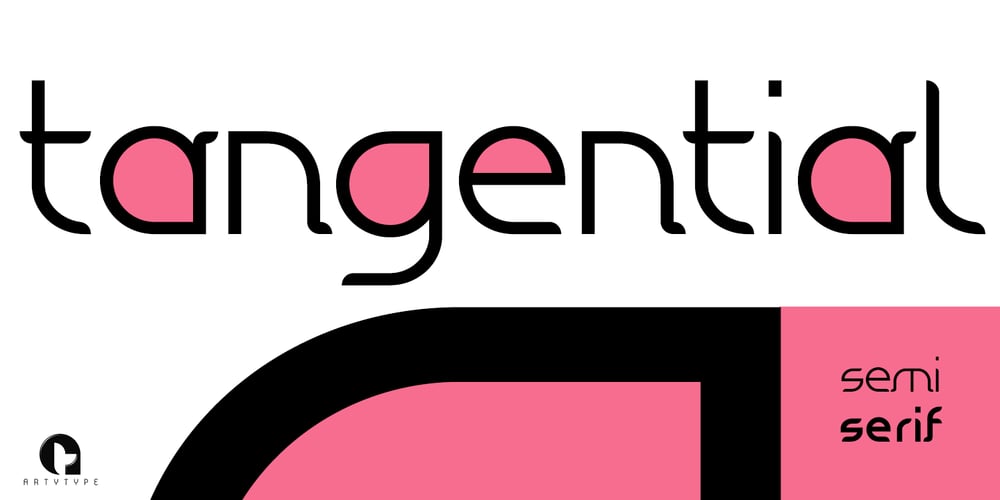
Tangential SemiSerif
Tangential SemiSerif font
Tangential SemiSerif Font Family was designed by James Marsh and published by ArtyType. Tangential SemiSerif contains 2 styles and family package options. This variation in the Tangential series (see also the Standard & Rounded families) continues with the angles that give the typeface its name, however a semi-serif is applied wherever appropriate to create a more open, softer variant. The Tangential style I envisaged for the family is complemented by the prominent use of negative space throughout, most apparent on the drop shaped ‘o’ which is a key feature of the typeface and a letterform I’m particularly pleased with. Available in 2 weights, Regular & Bold, in both OpenType OTF & TrueType TTF formats.